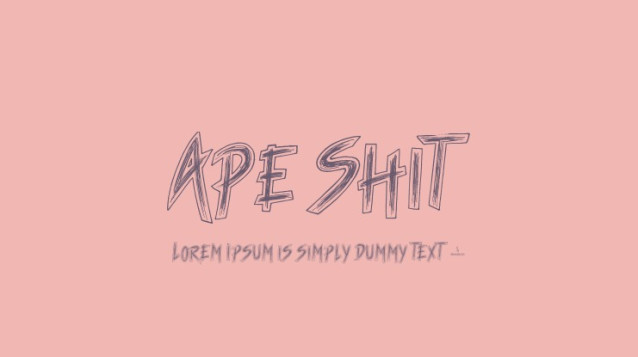
Ape Shit Font
Ape Shit Font has a scribbled, unconventional look, creating a strong and somewhat rebellious feeling.
Suitable applications:
Advertising and presentation: Very suitable for banners, posters, signs or promotional materials that need to attract attention quickly.
Product design: Can be used on T-shirts, book covers, music albums or products with unique styles.
Logo and brand: Suitable for brands that want to create a difference, personality or have a young, dynamic customer base.
Entertainment content: Suitable for games, movies, comics with action, horror, or humor themes in the “cool comic” style.